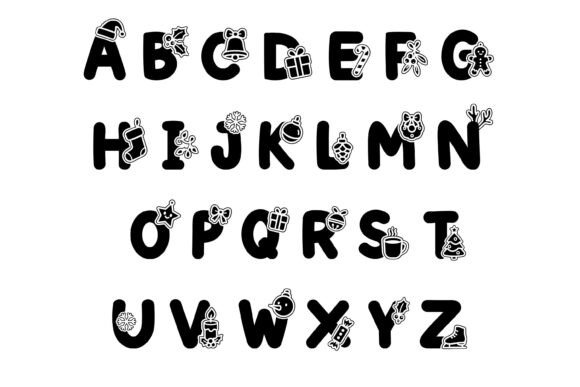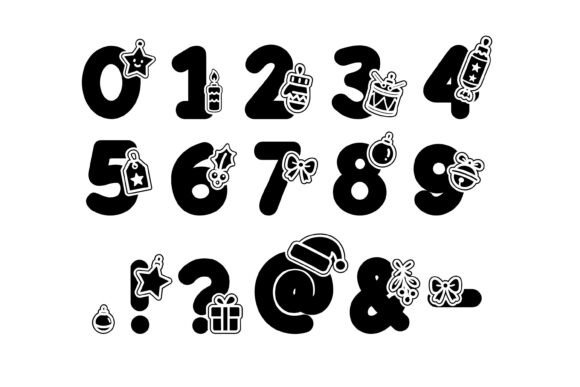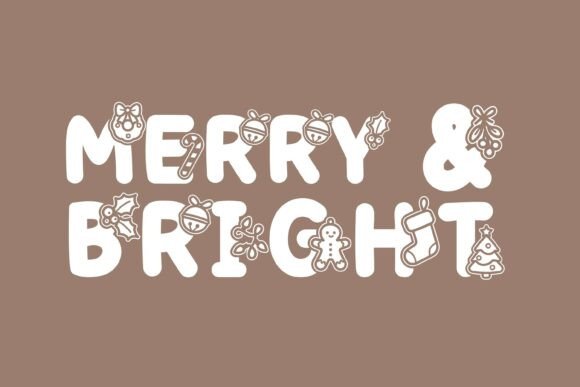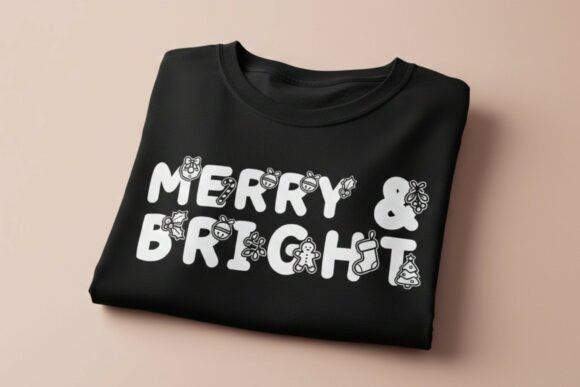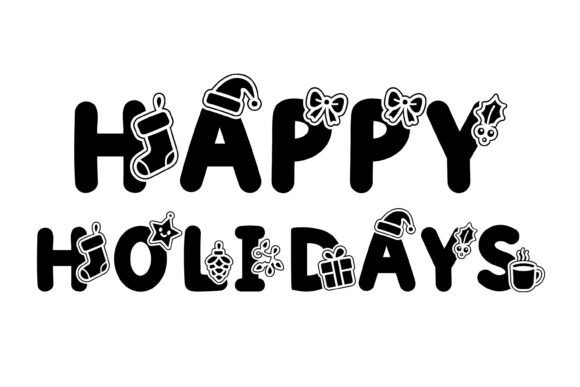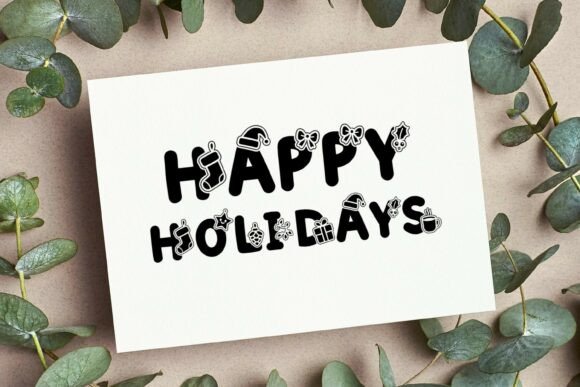
Introduction to Merrymunch Font
MerryMunch is a bold, playful Christmas doodle display font—perfect for holiday crafts, stickers, gift tags, kids designs, party invites, and seasonal branding.
Key Features of Merrymunch Font
Why Choose Merrymunch Font?
Merrymunch Font offers exceptional quality and versatility, making it a valuable addition to your design toolkit. Whether you’re creating for personal projects or commercial use, Merrymunch Font delivers professional results.